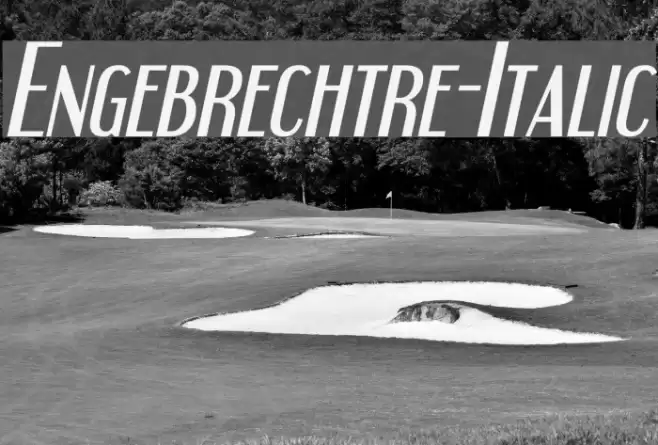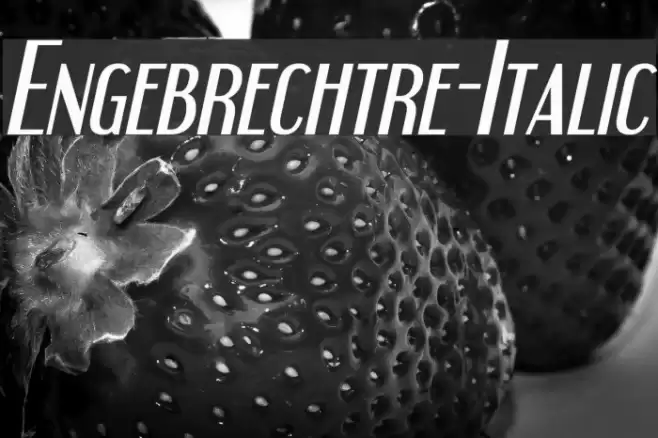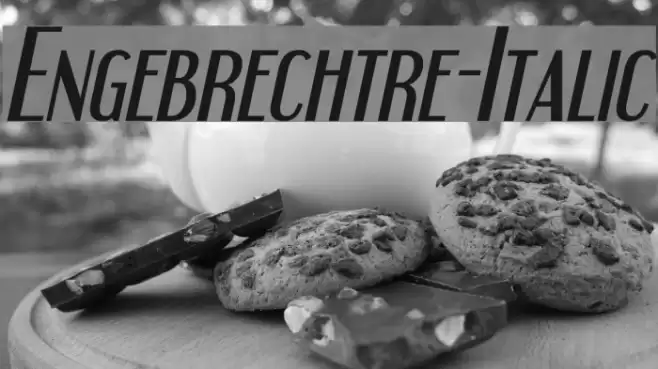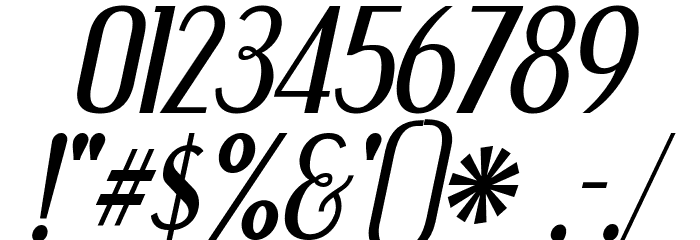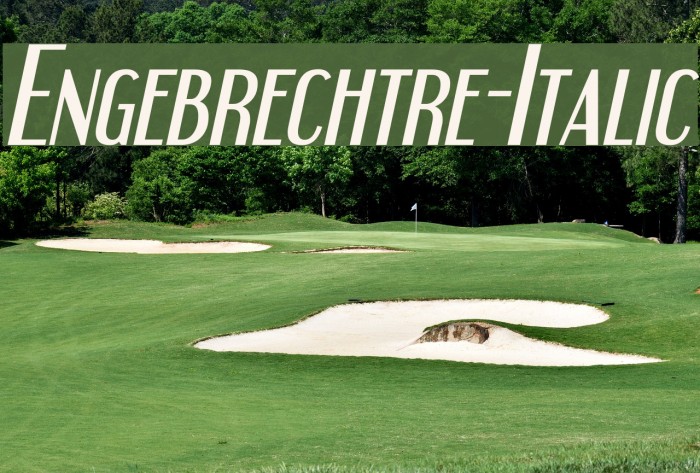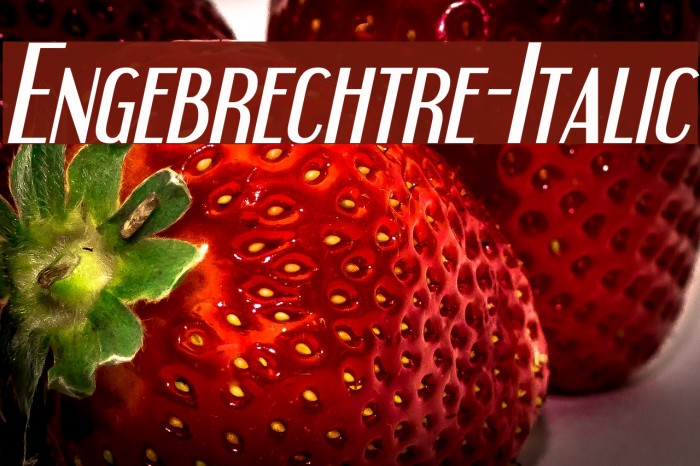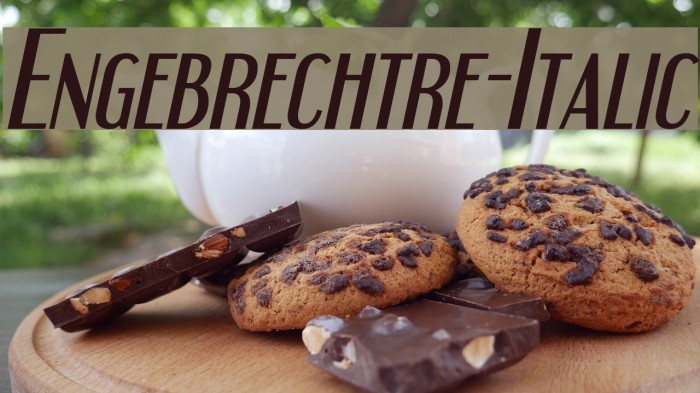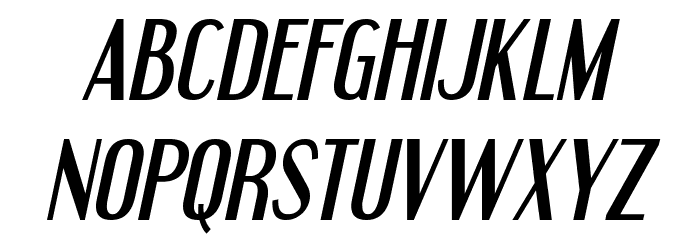
Engebrechtre-Italic Font
Engebrechtre-Italic Description
This font features a sleek and modern italic style with elongated, narrow characters that convey a sense of elegance and sophistication. The strokes are smooth and slightly curved, giving the font a dynamic and fluid appearance. The uppercase letters are tall and commanding, while the lowercase letters maintain a consistent flow, enhancing readability. Numerals are distinct and well-proportioned, and the special characters are designed to complement the overall aesthetic. The font's design is suitable for creating a stylish and contemporary look, making it ideal for various creative applications.
A sleek, modern italic font with elongated, narrow characters from Sans Serif fonts.
- Proposed Projects: Ideal for fashion magazines, luxury branding, modern advertising, and elegant invitations.
- Use Case: Headlines, Logos, Editorial design